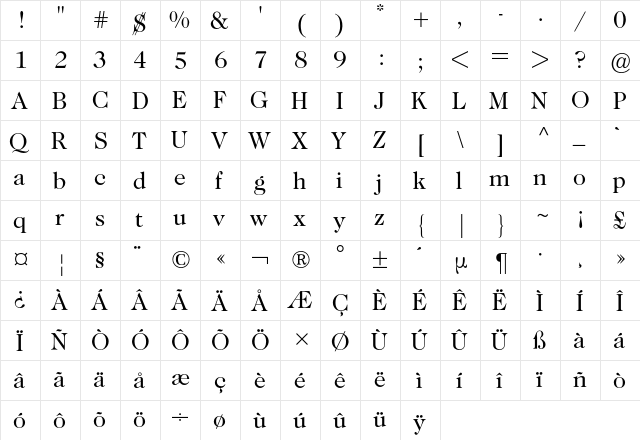
Caslon Two TwentyFour BQ Regular
Design Context for Caslon Two TwentyFour BQ Typeface
Caslon Two TwentyFour BQ offers clean, dependable letterforms without strong stylistic allegiance, making it a practical choice for designers who need flexibility.